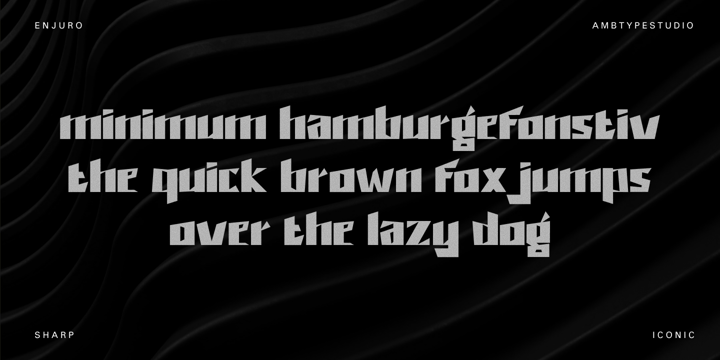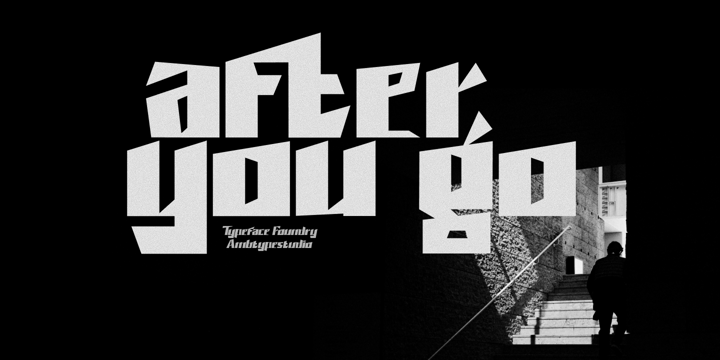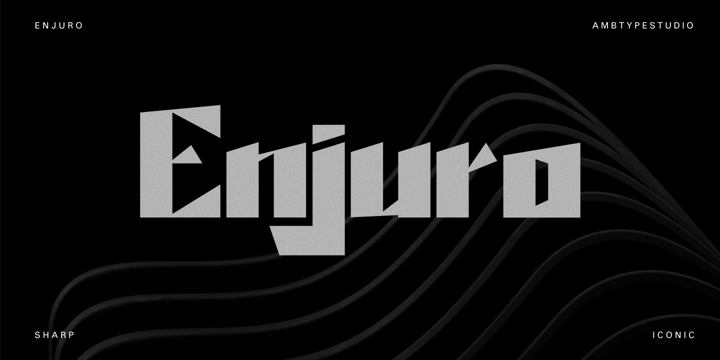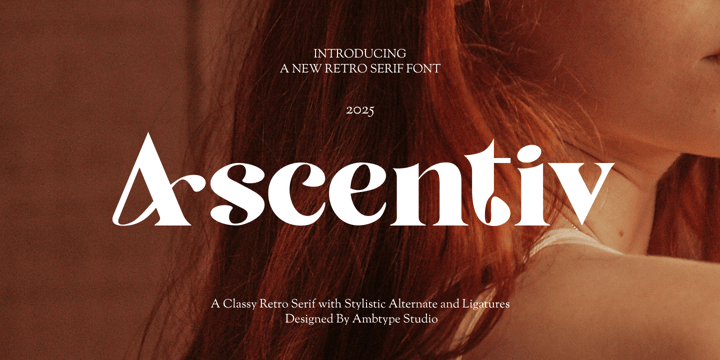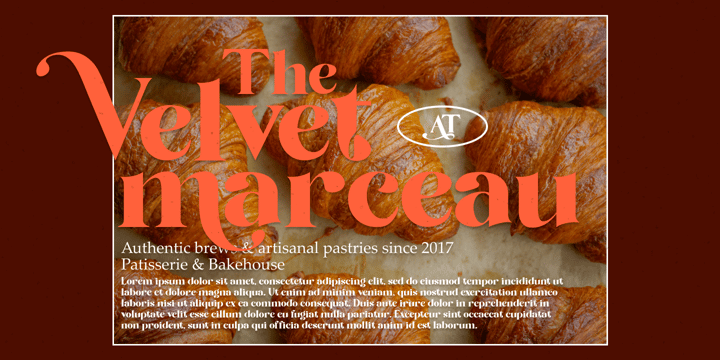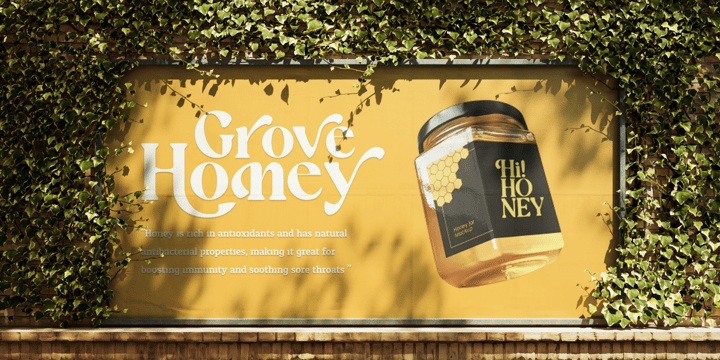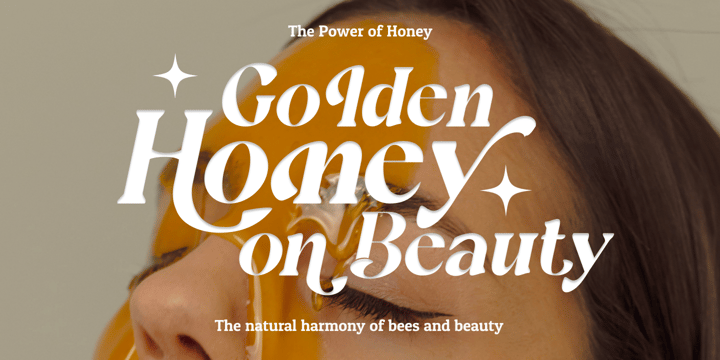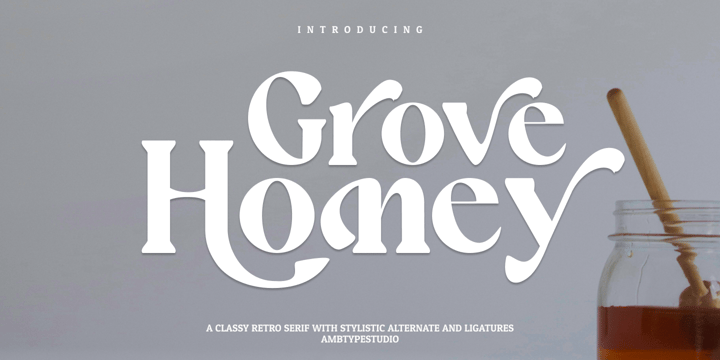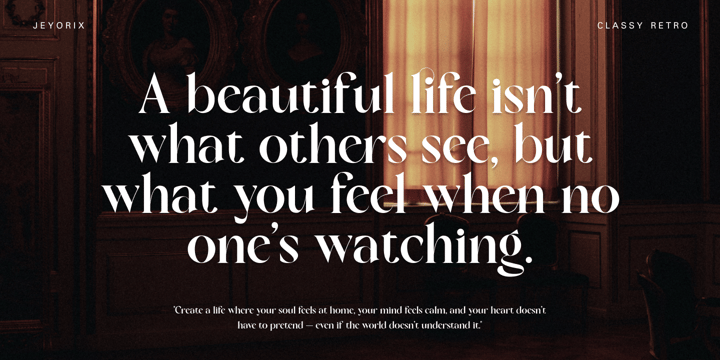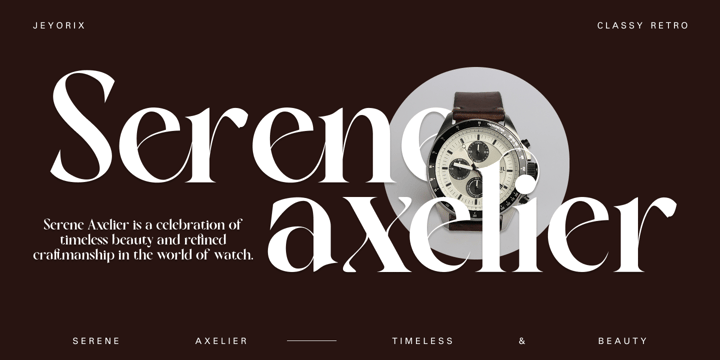
William Rizky Bahari
I’m (William Rizky )a self-taught type designer based in Indonesia. I got into type design after spending hours watching videos from local foundries I admire just out of curiosity at first, but it quickly turned into something more serious.
Over the past year, I’ve been exploring how letterforms can express personality, mood, and even nostalgia. I’m especially drawn to serif typefaces with a retro or elegant vibe—fonts that feel like they belong in a different time, but still work beautifully today.
I use FontLab to build my fonts from the ground up, and I enjoy handling the full process myself—from sketching and shaping to refining details and adding features. For me, type design isn’t just about making something functional; it’s about creating something that feels alive and memorable.
Right now I’m still learning and growing, but every new font is a step forward—and I’m excited to keep building a body of work that reflects both who I am and what I love.